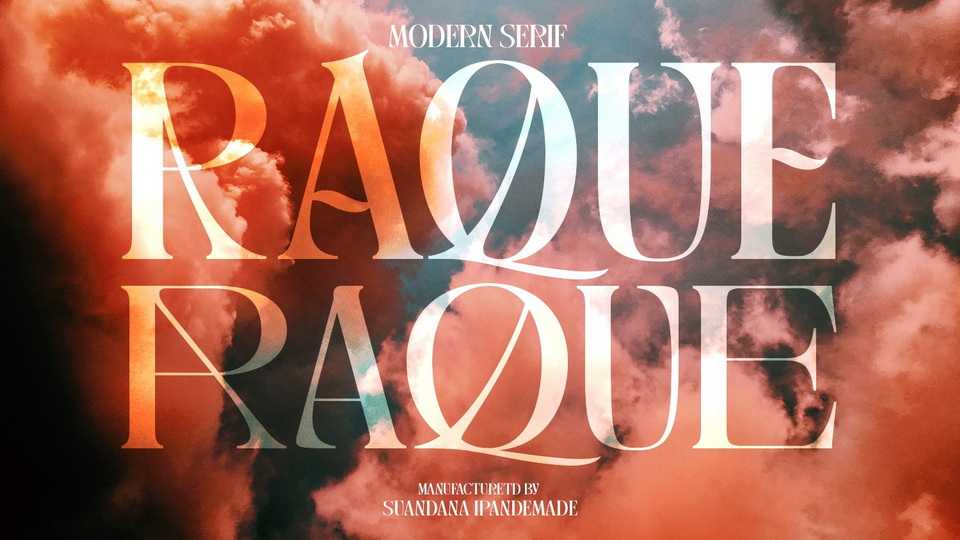
Download Raque font, a modern all caps serif typeface. Use Raque font for any branding, product packaging, invitation, quotes, t-shirt, label, poster, logo etc.
Designer: TypeClassHeroes